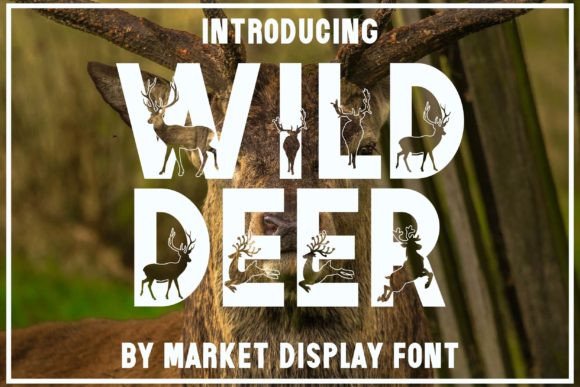
Introducing Wild Deer Font, the epitome of nature-inspired typography that will elevate your design game! Created by the talented MDF, this remarkable display font is specifically designed to infuse your projects with a sense of adventure and authenticity. If you're looking for the perfect font to captivate your audience and leave a lasting impression, look no further.
With its unique blend of elegance and wilderness, Wild Deer Font is an absolute must-have for anyone seeking the best fonts for nature-inspired designs. Its carefully crafted letterforms evoke a sense of wanderlust, perfectly capturing the beauty and serenity of the great outdoors. Whether you're working on a logo, branding, packaging, or any other creative endeavor, this font will effortlessly enhance your message.
Imagine your next project adorned with Wild Deer Font. Each letter is meticulously designed to resemble the graceful curves and organic forms found in nature. The strokes, inspired by the majestic deer roaming through the wild, exude a sense of strength and grace. Your audience won't be able to resist its magnetic pull, drawing them closer to your message.
But the appeal of Wild Deer Font doesn't stop at its aesthetic charm. This font is carefully optimized for legibility, ensuring that your text remains clear and easy to read in any context. Whether it's on a website, social media post, or print material, your words will effortlessly shine through, captivating your audience with every glance.
Unleash your creativity and let Wild Deer Font be the driving force behind your design masterpiece. Its versatility allows it to seamlessly adapt to various design styles, making it the perfect choice for a wide range of projects. From rustic and organic to modern and minimalist, this font effortlessly complements any visual concept you have in mind.
Don't settle for ordinary fonts when you can have the extraordinary. Wild Deer Font is your ticket to standing out from the crowd and leaving a lasting impression. Embrace the wild side of typography and unlock a world of endless possibilities for your creative pursuits.